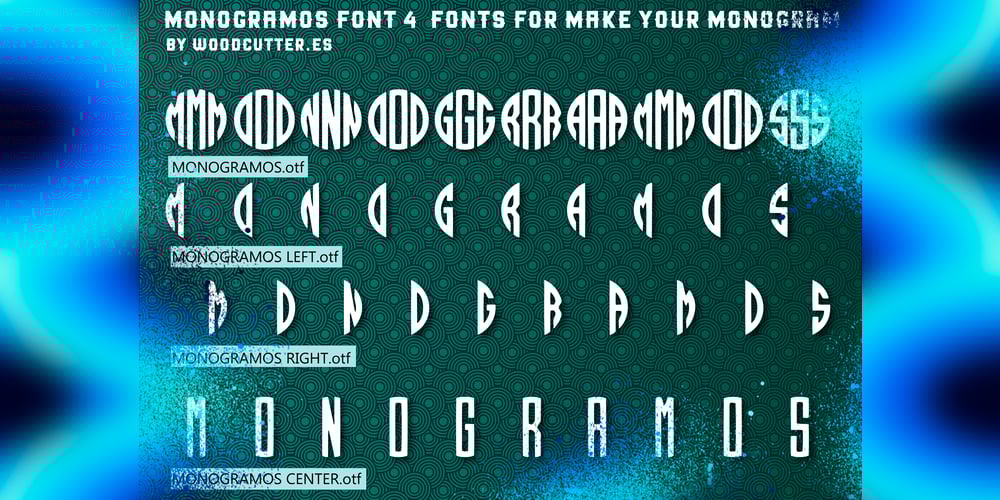
Monogramos Font Family was designed by Jordi Manero and published by Woodcutter. Monogramos contains 4 styles and family package options. “Monogramos font features three typefaces designed specifically for creating circular monograms with a retro vibe. With customizable letter combinations, this font allows you to craft personalized monograms effortlessly. Ideal for projects seeking to add a vintage touch to logos, branding, and stationery, ‘Monogramos’ offers a versatile solution for creating elegant and timeless designs. Perfect for wedding invitations, logos, and personal branding, this font brings a classic yet modern aesthetic to your projects, ensuring a sophisticated and distinctive look.”